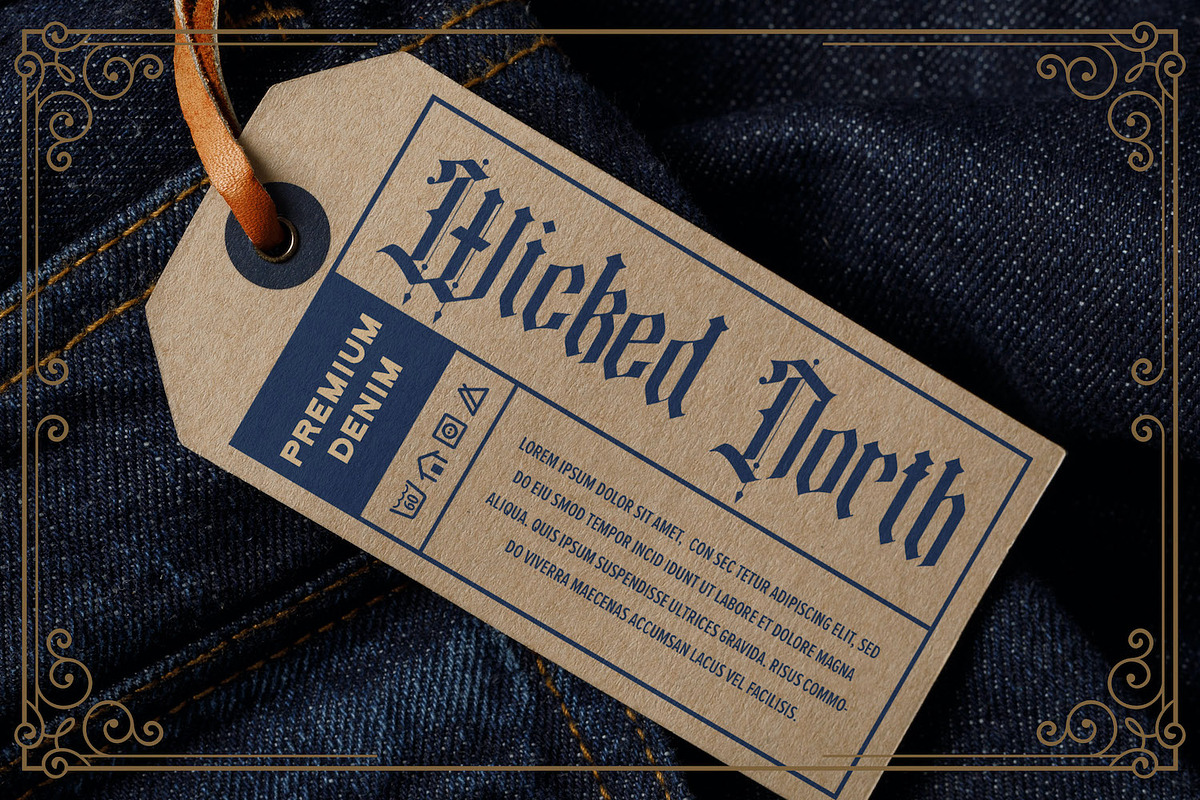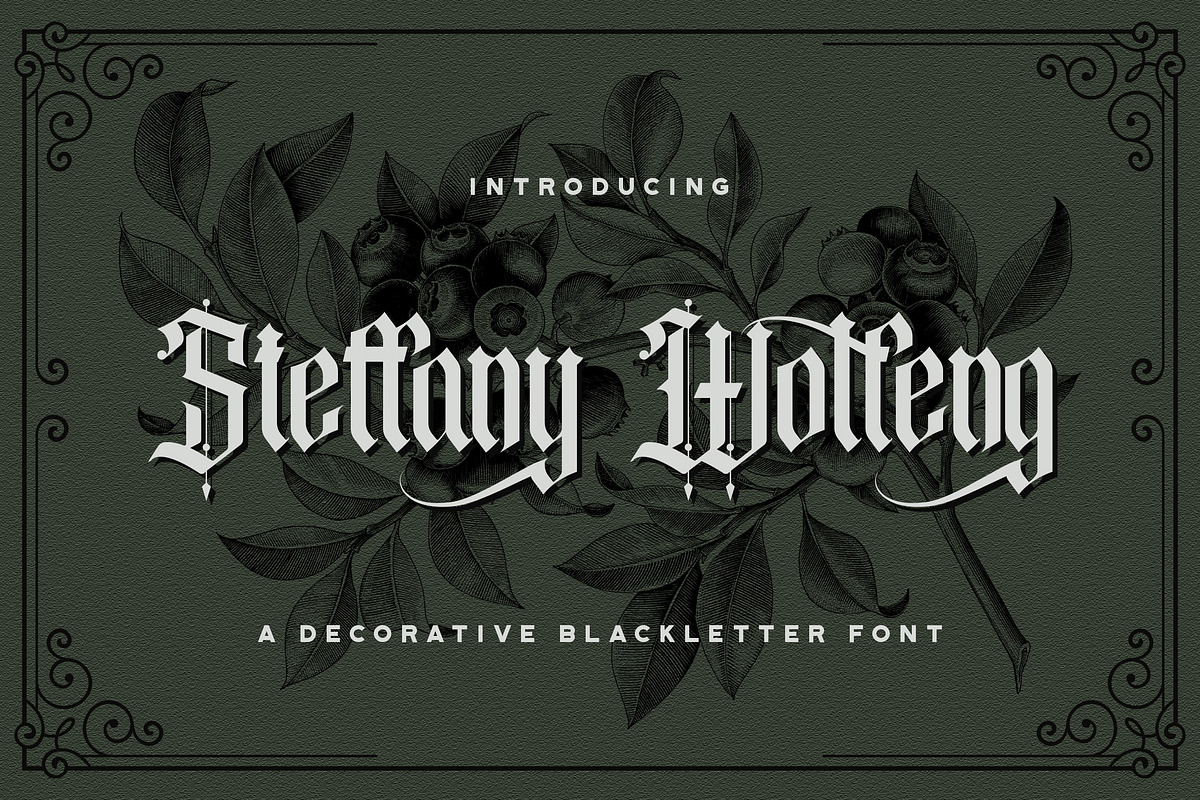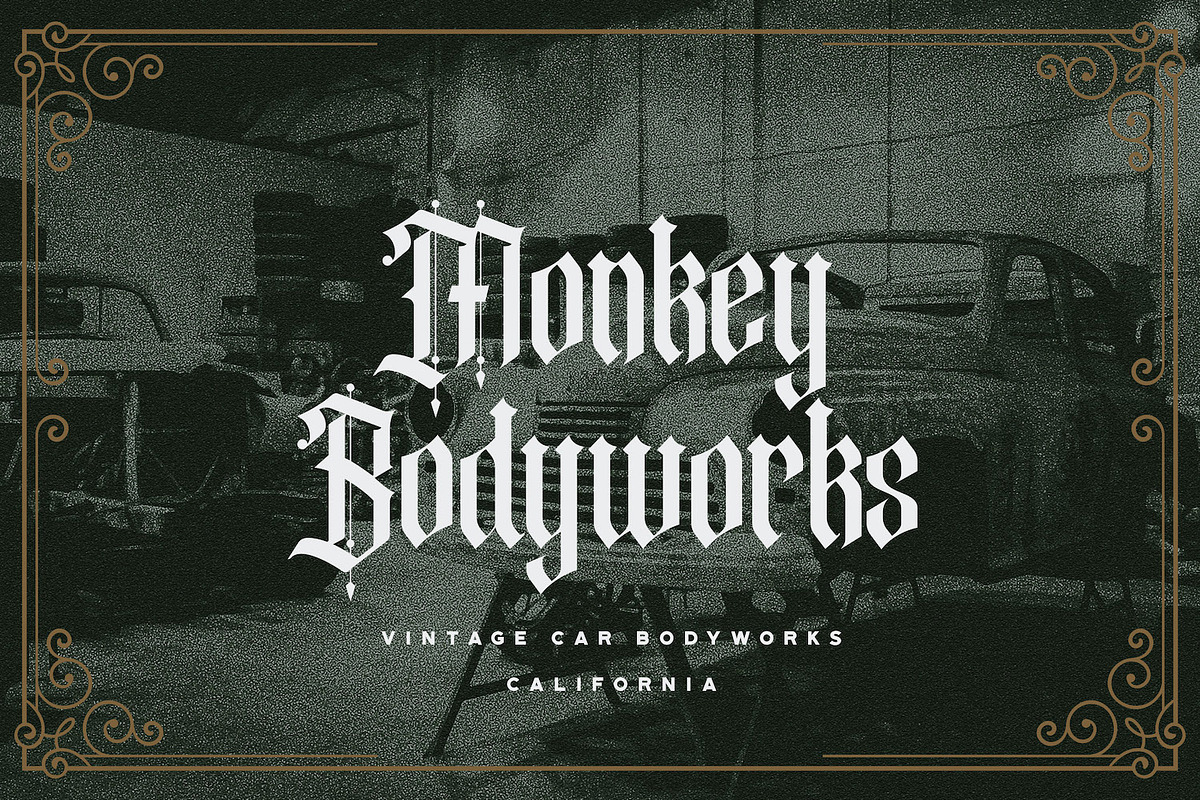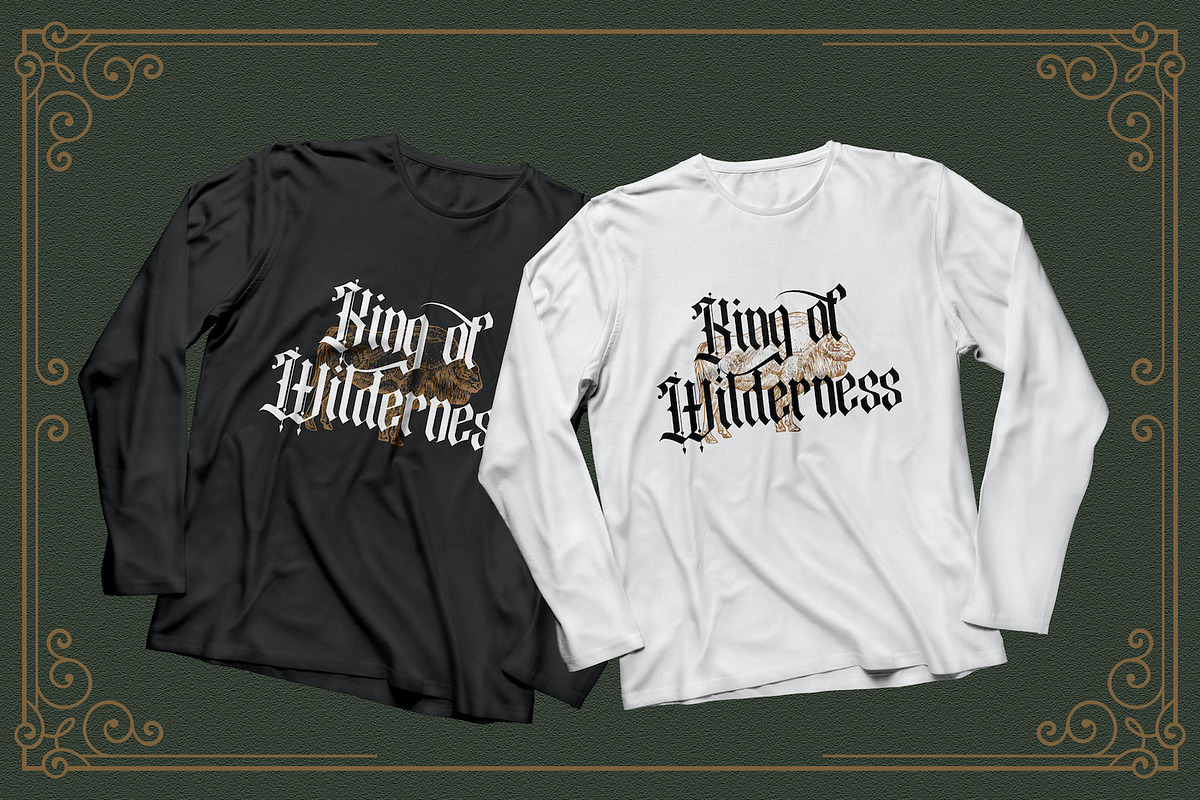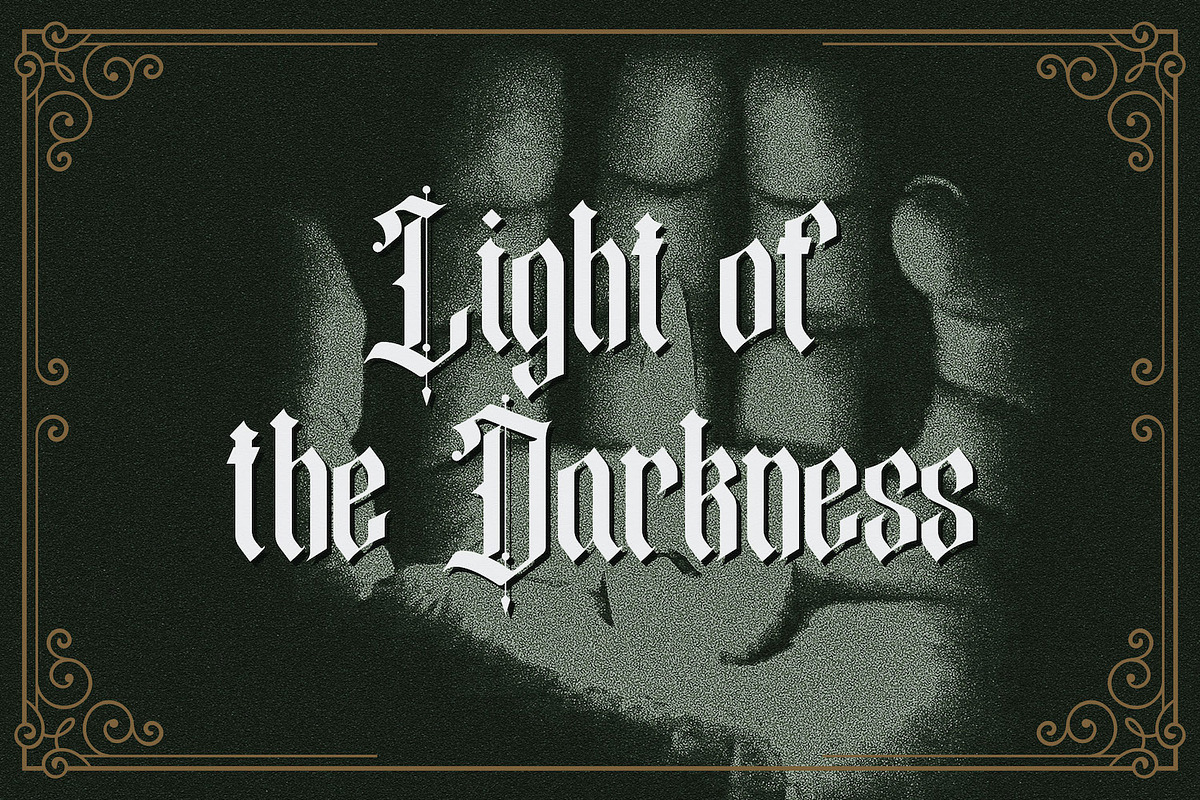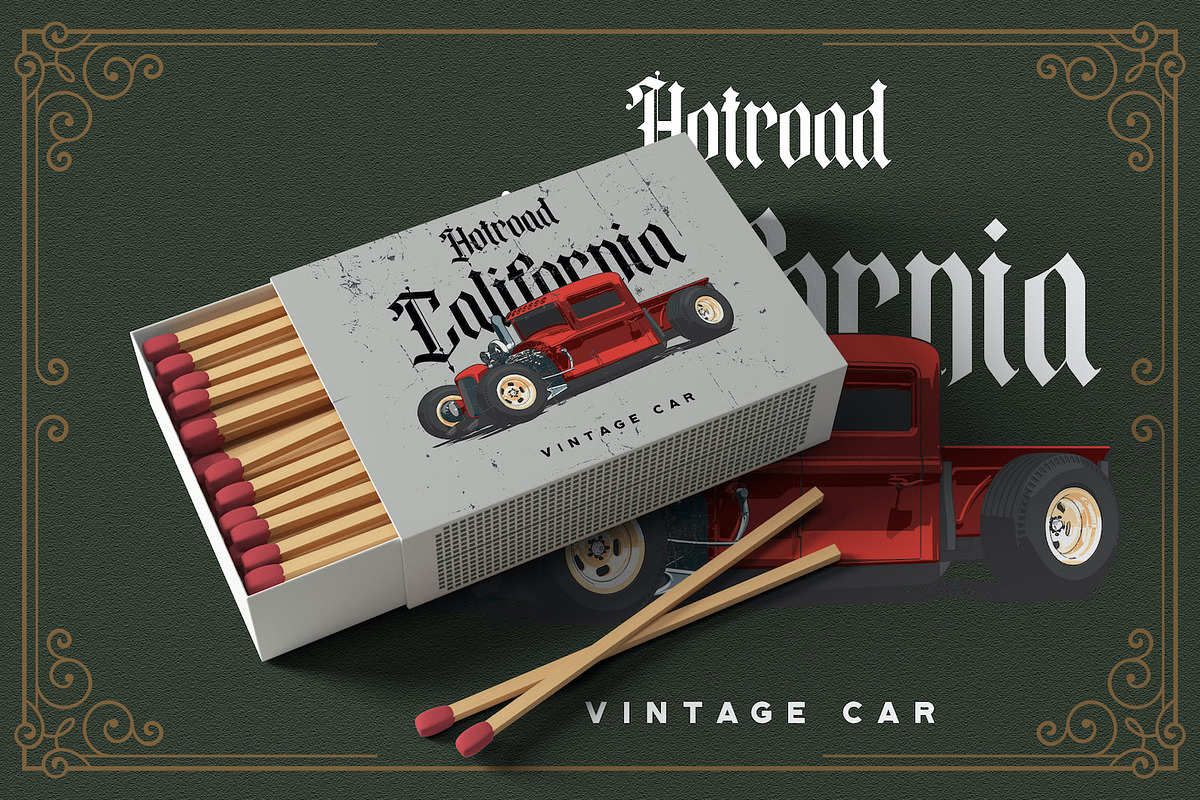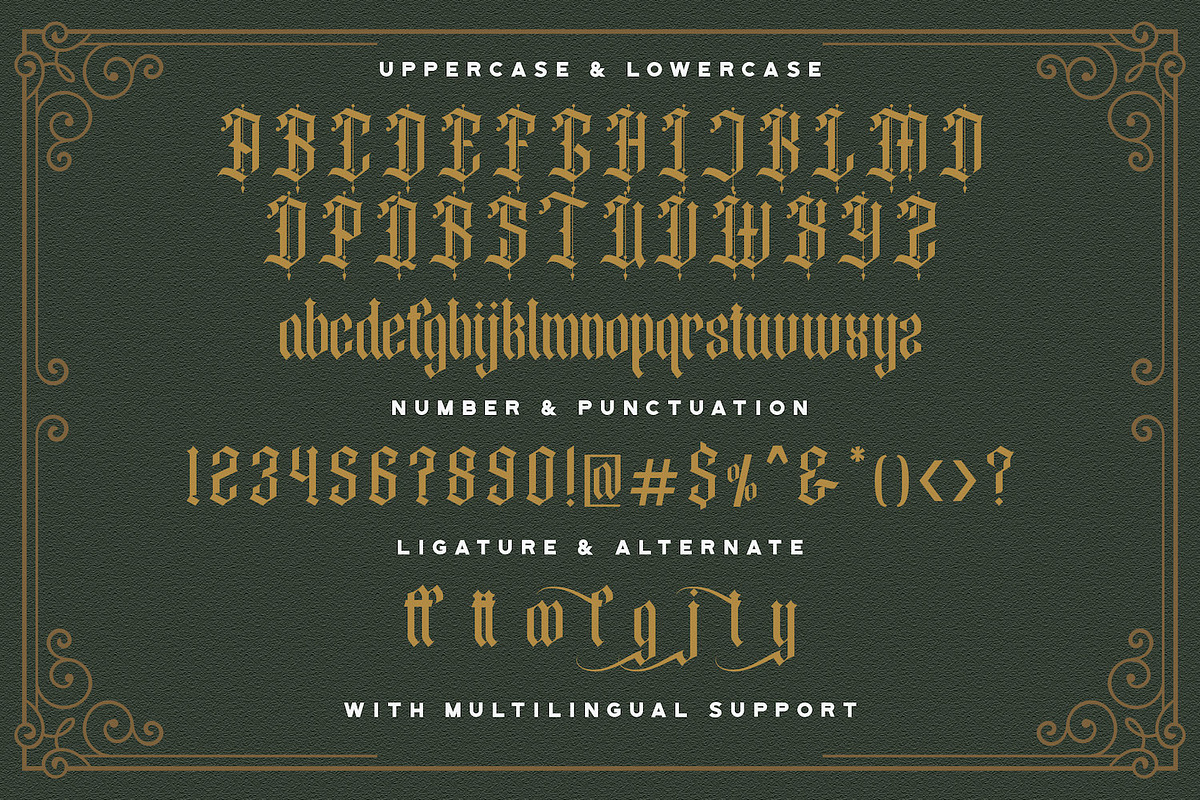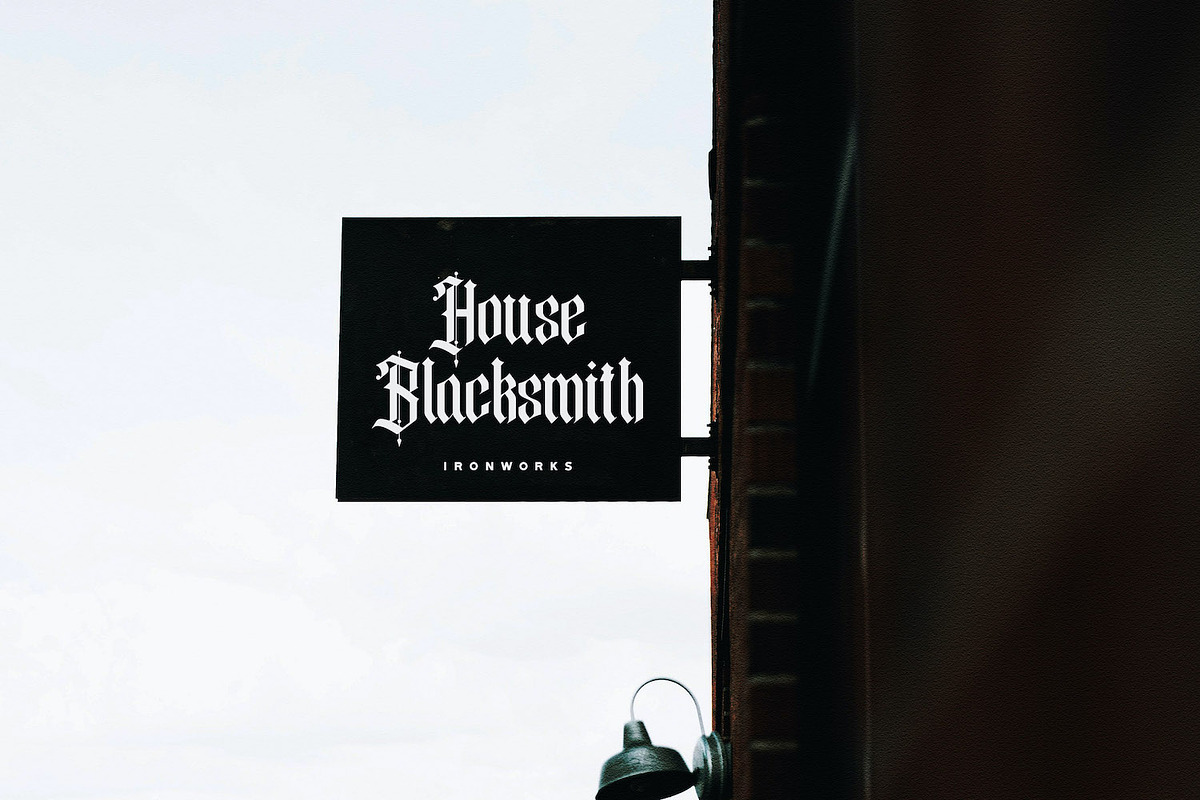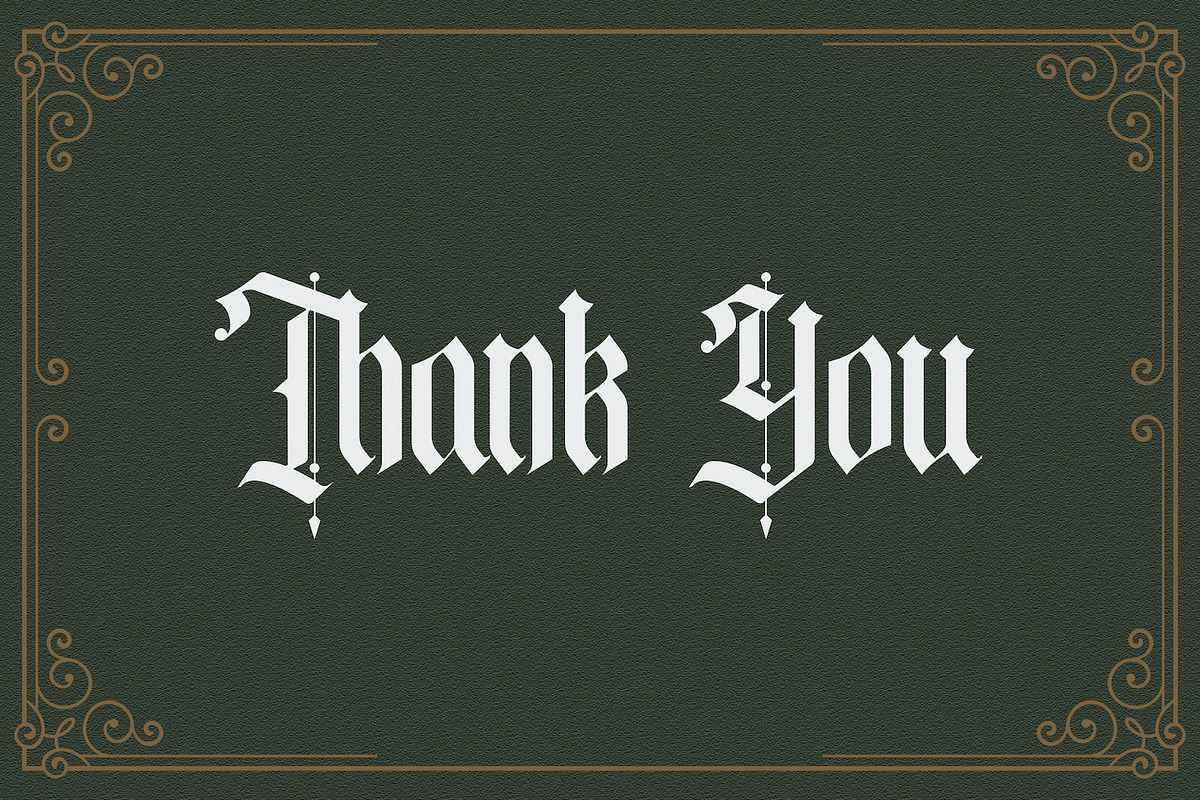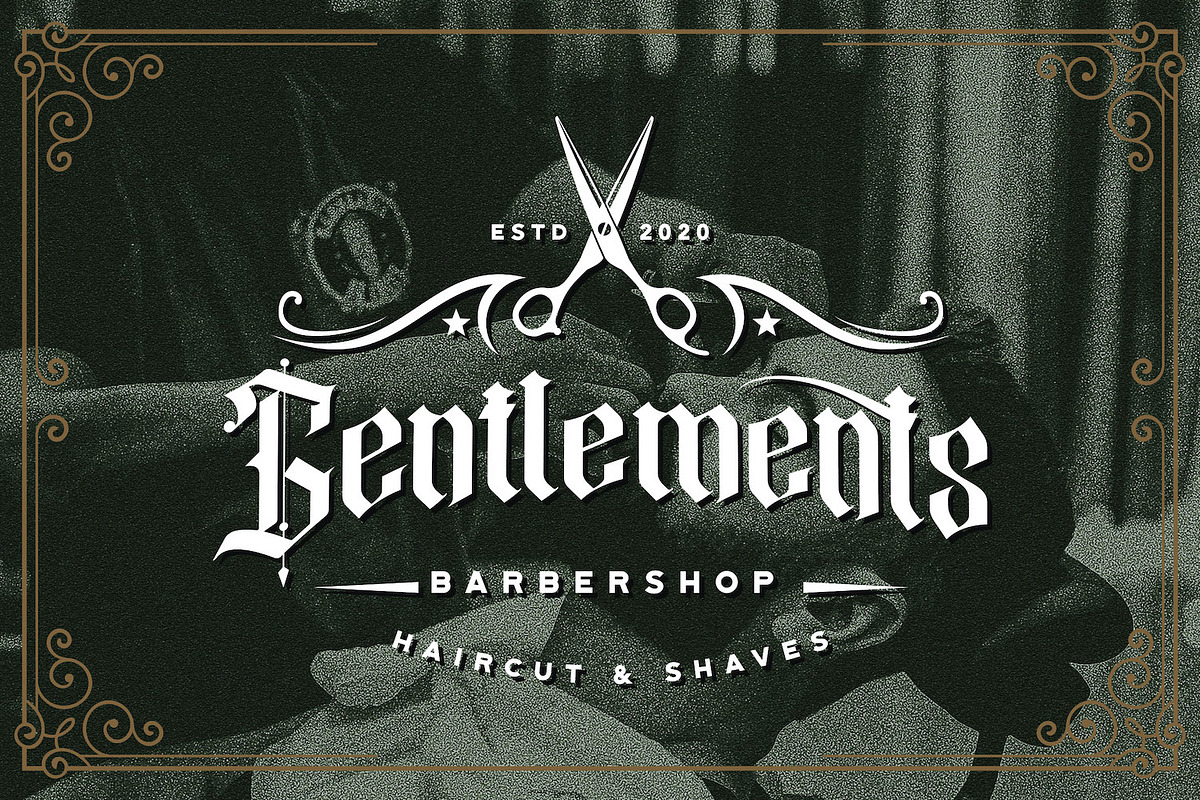
Steffany Wolfeng - Blackletter Font
Introducing Steffany Wolfeng - Blackletter Font
Steffany Wolfeng is an incredibly authentic and daring blackletter font. Add this font to your favorite creative ideas and notice how it makes them stand out!